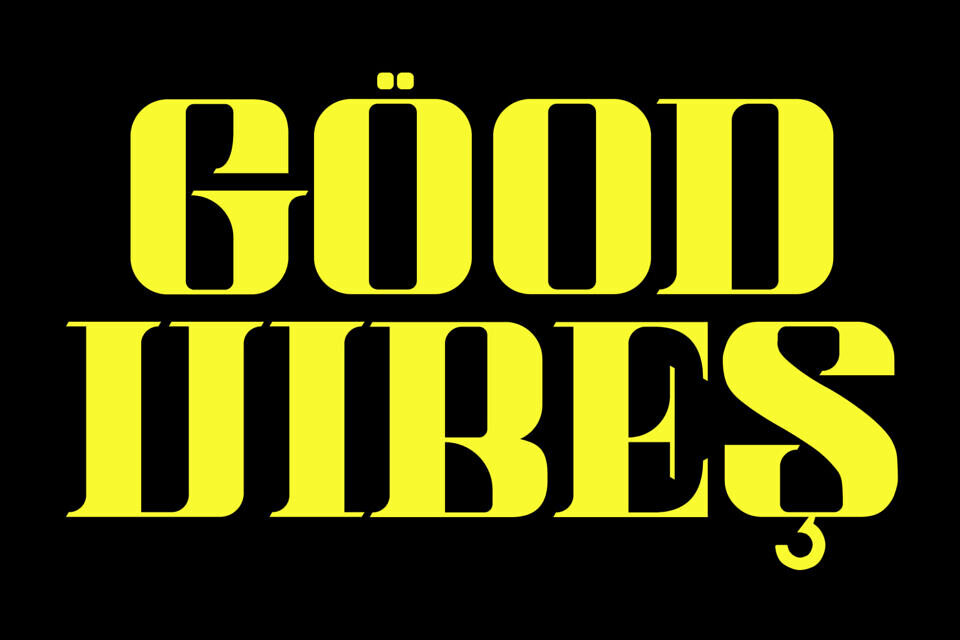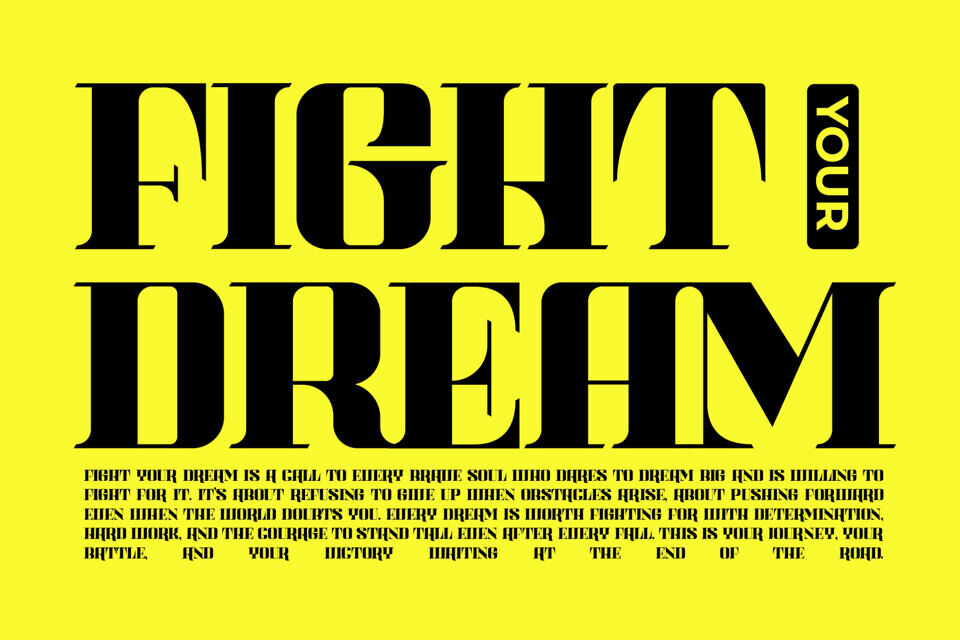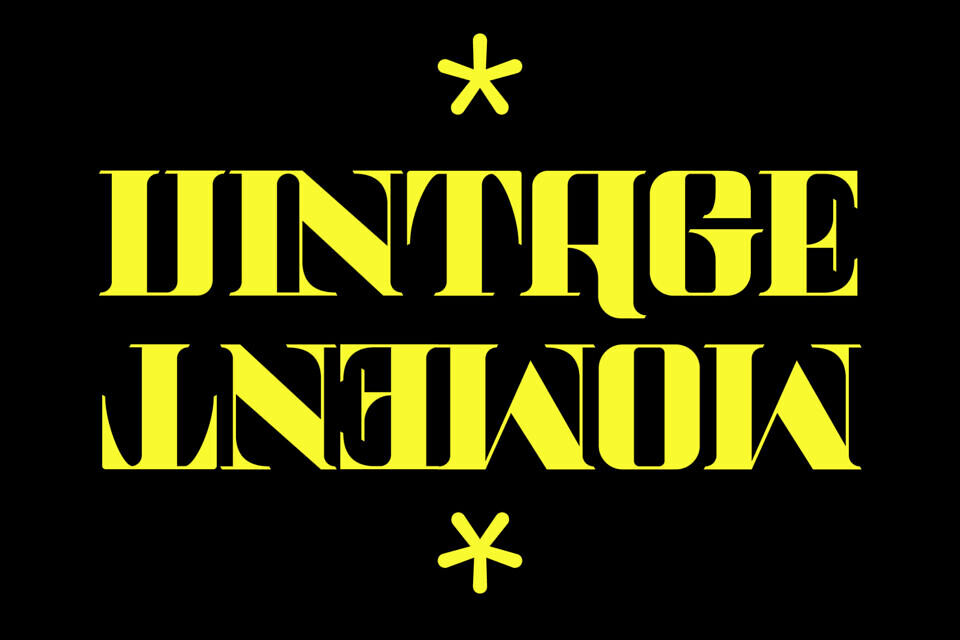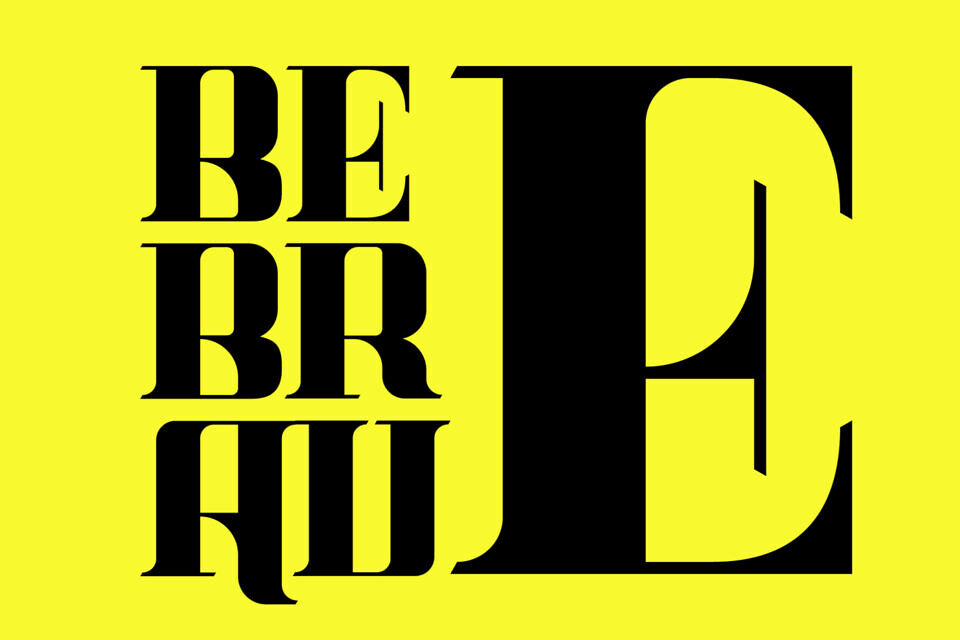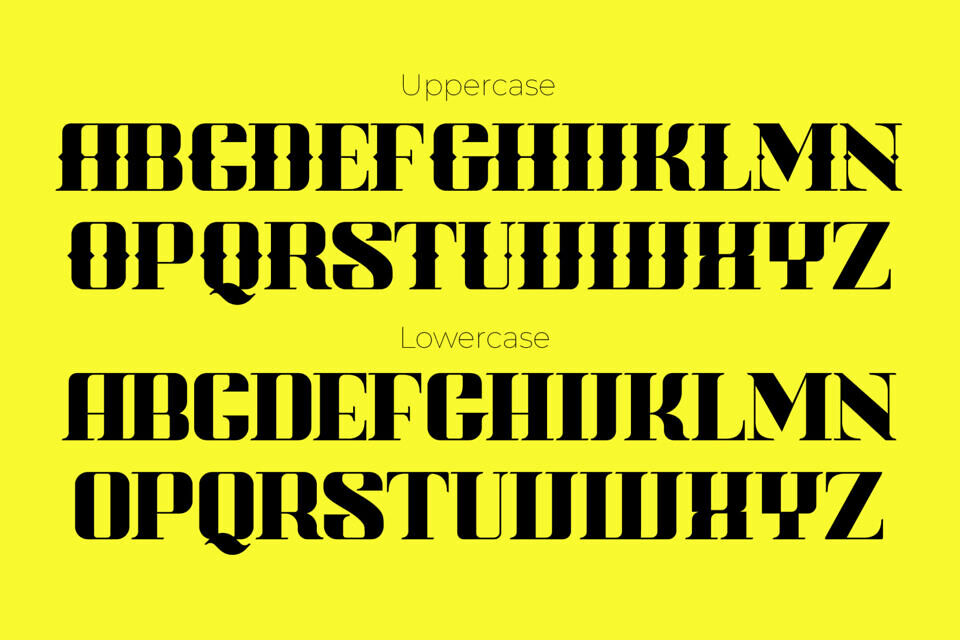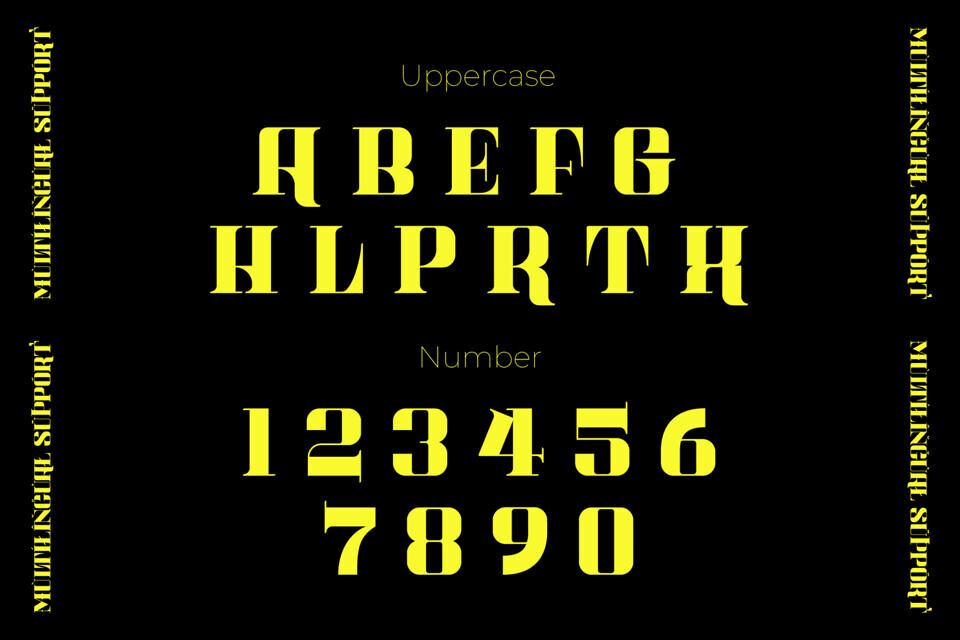
Humble Spark Font
Humble Spark Font is a bold, modern serif typeface with a dynamic, energetic vibe. Its clean lines and unique letterforms make it perfect for logos, headlines, or branding projects seeking a contemporary edge.
Featuring uppercase, lowercase, numbers, and special characters, it offers versatility for creative designs. Ideal for posters or digital media, this font sparks inspiration.